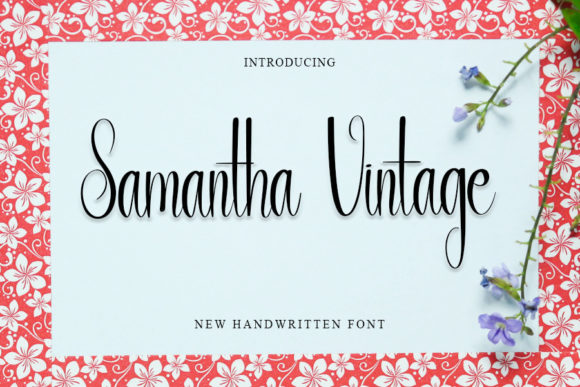
Introducing Samantha Vintage Font: The Timeless Elegance for Your Special Day
In the realm of fonts, Samantha Vintage stands as a true masterpiece, a symphony of letters that exudes grace, charm, and timeless beauty.
Stemming from the creative genius of K_IN Studio, this font family captivates with its enchanting script style, meticulously crafted to evoke the essence of classic calligraphy while embracing a refreshing contemporary touch. From the flowing strokes of each character to the delicate flourishes that add a touch of whimsy, Samantha Vintage is a visual masterpiece that will elevate your designs to new heights.
Step into a world of elegance and sophistication as you explore the possibilities of Samantha Vintage. Picture your wedding invitations adorned with this exquisite font, the words "I do" rendered in a style that reflects the enduring nature of your love. With Samantha Vintage, your wedding stationery will be transformed into cherished keepsakes that capture the essence of your special day and stand the test of time.
Be it a heartfelt love letter, an artistic greeting card, or a captivating poster, Samantha Vintage lends its charm to an array of creative endeavors, adding a touch of personal elegance to every creation. Embrace the versatility of this font as it complements a wide spectrum of design aesthetics, from vintage-inspired themes to modern minimalist projects.